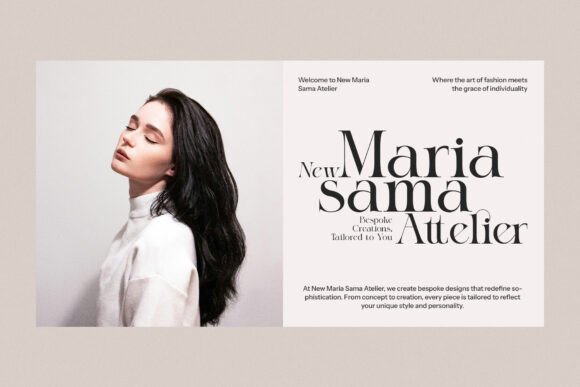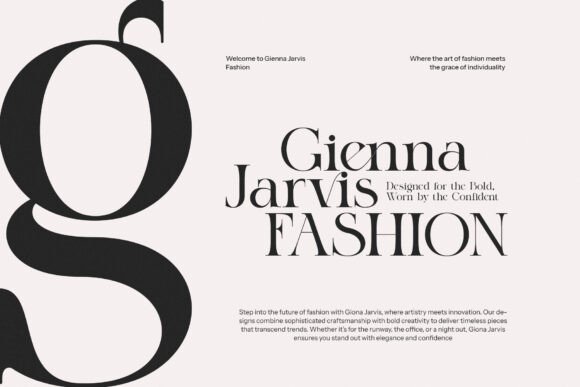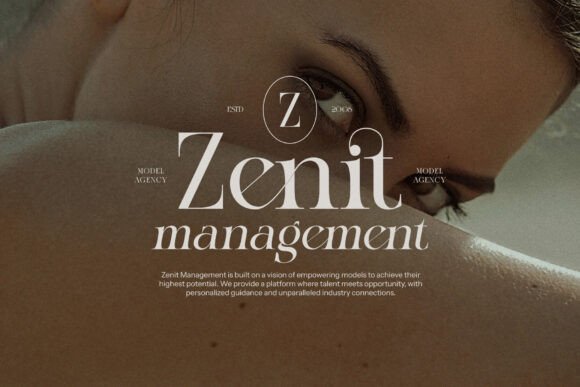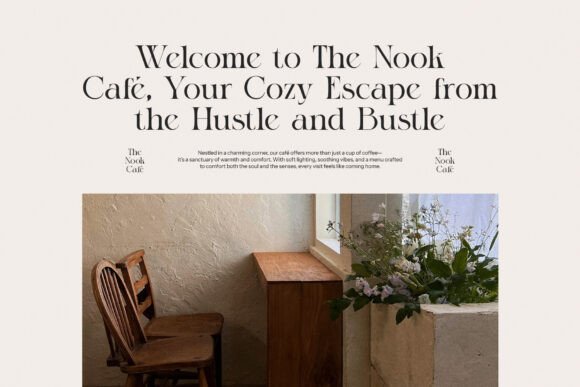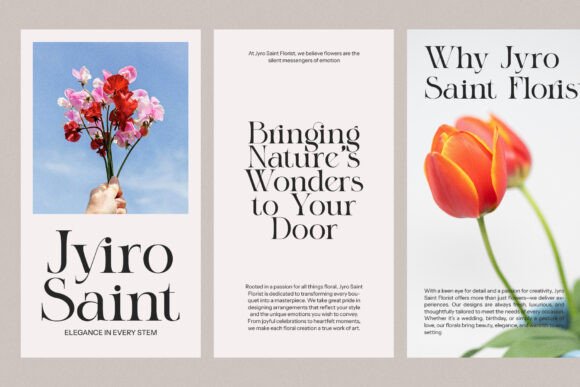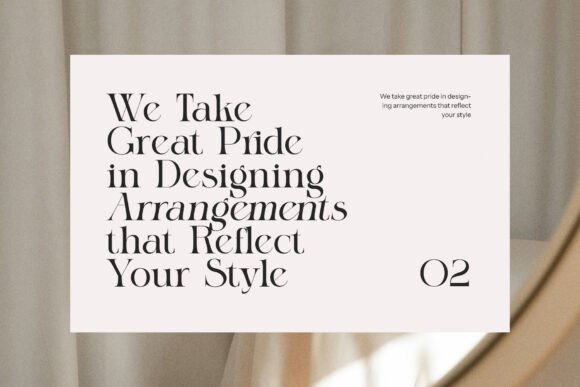
Introducing Elgim Font: Elevate Your Designs with Elegance and Sophistication
In the world of typography, a well-crafted font can make all the difference in elevating your design to new heights. Elgim Elegant Serif Font is a stunning typeface that embodies sophistication and timeless style, making it an ideal choice for designers and crafters looking to add a touch of luxury to their projects.
A Refined and Elegant Serif Font
Elgim Font is a beautifully crafted serif font that features unique letterforms with balanced curves and sharp edges. Its refined touch and elegant design make it perfect for various design applications, from logos and branding materials to sleek website layouts. With Elgim, you can add a luxurious feel to your designs that exudes professionalism and elegance.
Ideal for Fashion, Boutique Branding, and High-End Products
Elgim Font is particularly well-suited for projects in fashion, boutique branding, high-end products, and upscale advertising. Its distinct serifs and elegant structure make it a perfect fit for designs that require a touch of sophistication and refinement. Whether you’re creating a logo for a fashion brand or designing a brochure for a high-end product, Elgim Font is sure to impress.
Versatility in Editorial Layouts
Elgim Font’s versatility shines in editorial layouts, where its distinct serifs create a harmonious flow of text that is both readable and visually appealing. Whether you’re designing a magazine, newspaper, or blog, Elgim Font is a great choice for creating engaging and elegant content.
Perfect for Food Packaging and Hospitality Branding
The font’s graceful structure also makes it a perfect fit for food packaging and hospitality branding. With Elgim Font, you can create designs that project quality and refinement, making it ideal for restaurants, cafes, and food brands looking to elevate their brand image.
Stand Out in Digital and Print Environments
Elgim Elegant Serif Font stands out in both digital and print environments, ensuring your content resonates with an audience looking for sophistication and elegance. Whether you’re designing for digital platforms or print materials, Elgim Font is a versatile choice that will make your designs shine.
Key Features of Elgim Font
- Elegant Serif Design: Elgim Font features a beautifully crafted serif design with unique letterforms and balanced curves.
- Refined Touch: The font’s refined touch makes it perfect for designs that require sophistication and elegance.
- Versatile: Elgim Font is suitable for various design applications, from logos and branding materials to editorial layouts and packaging.
- Readable and Visually Appealing: The font’s distinct serifs create a harmonious flow of text that is both readable and visually appealing.
In conclusion, Elgim Elegant Serif Font is a stunning typeface that embodies sophistication and timeless style. With its refined touch, elegant design, and versatility, it’s an ideal choice for designers and crafters looking to elevate their designs to new heights. Whether you’re working on a fashion brand, high-end product, or editorial layout, Elgim Font is sure to impress.